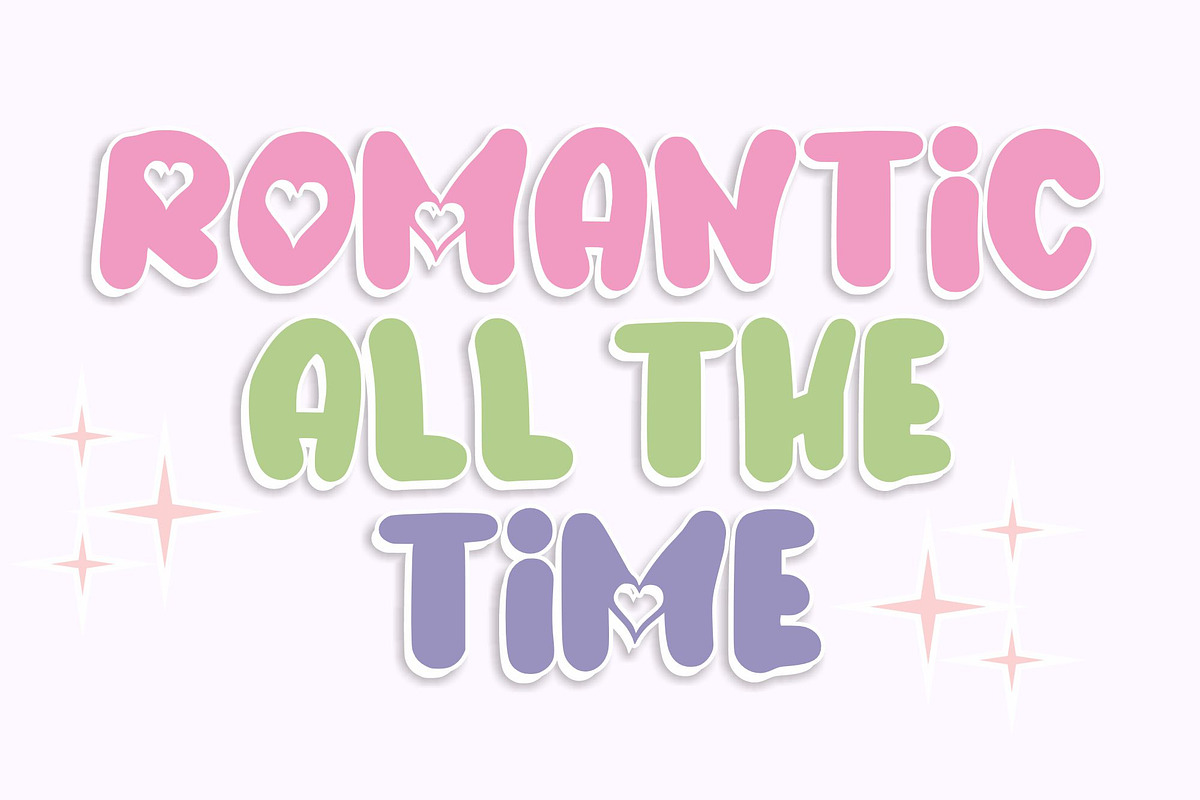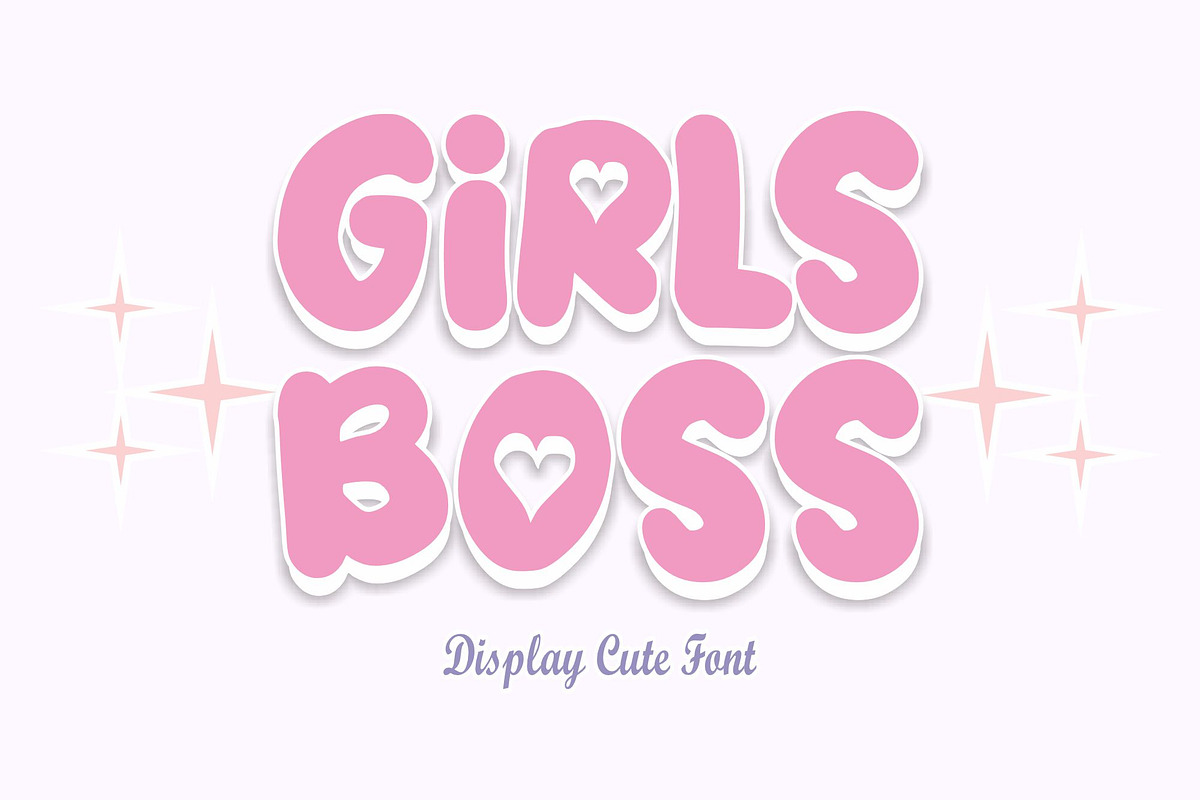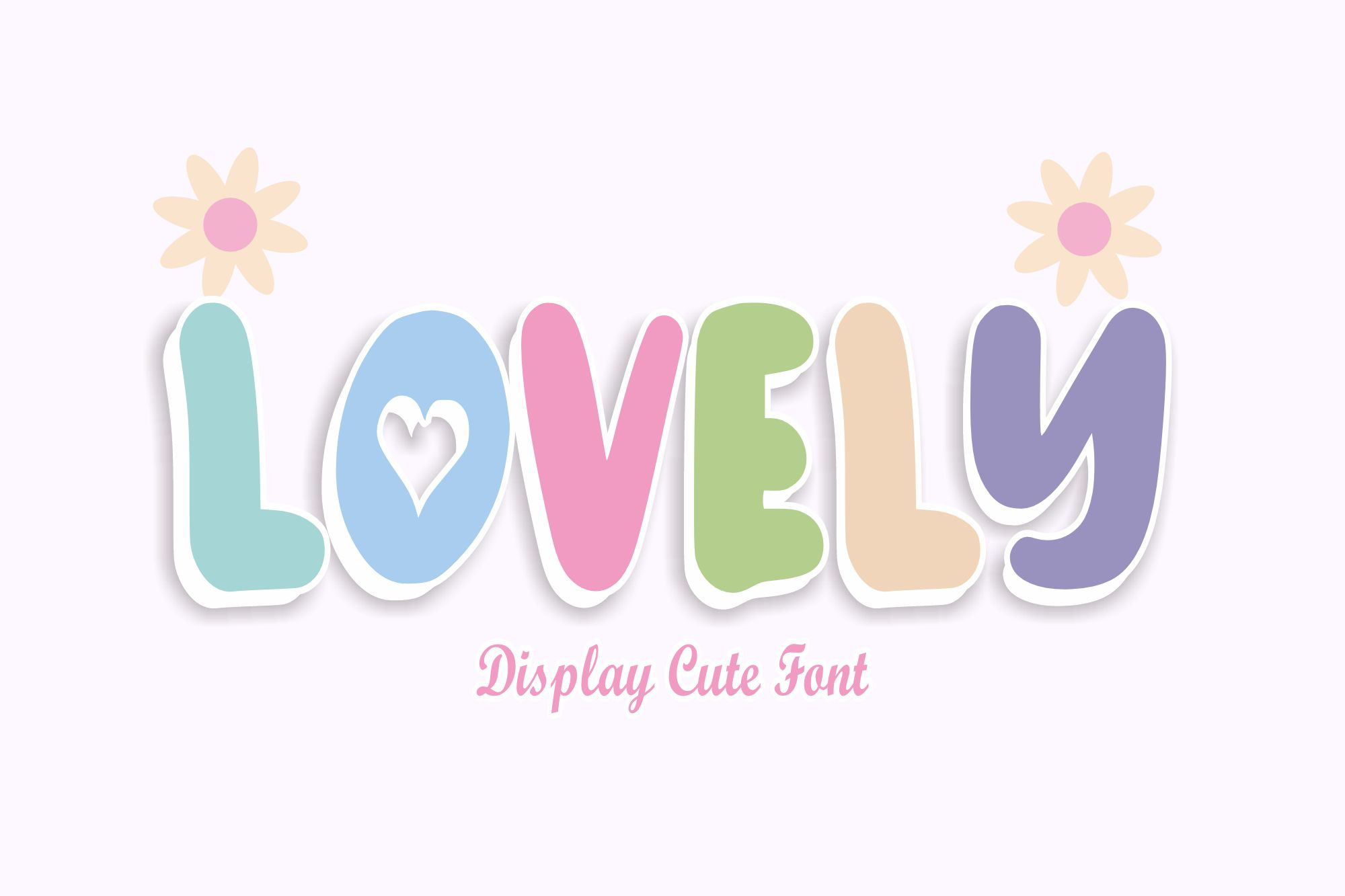
Lovely - Baby Font Types
Lovely is a cute and quirky display font. It will add an incredibly joyful touch to your designs. Add this beautiful display font to each of your creative ideas and notice how it makes them stand out!